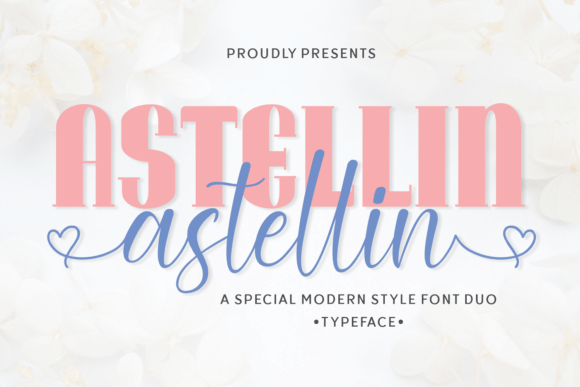
Astellin Font: Elevate Your Design with Astelin Duo
In the realm of typography, few fonts manage to strike a balance between style, versatility, and elegance. However, Astelin Duo, a part of the Astellin Font family, achieves this feat with remarkable precision. This article aims to introduce you to the world of Astellin Font, with a special focus on Astelin Duo—a unique typographic creation designed to cater to your design endeavors. Whether you’re a seasoned designer or an enthusiast looking to elevate your projects, Astelin Duo promises to be a game-changer.
Understanding Astellin Font
The Astellin Font family is a collection of typefaces designed to meet the diverse needs of designers, artists, and brands. Within this family, Astelin Duo stands out for its distinctive characteristics and wide range of applications. Astellin Font is not just about aesthetics; it’s about providing a tool that combines functionality with visual appeal, making it suitable for various design projects.
Introducing Astelin Duo
Astelin Duo is a typographic masterpiece that brings together two complementary fonts—a dynamic display font and an elegant script font. This combination allows designers to harness the power of contrast and harmony in their work. The display font in Astelin Duo is bold and attention-grabbing, perfect for headlines and titles that need to make an impact. On the other hand, the script font adds a touch of sophistication and fluidity, ideal for creating captivating captions or adding a personal touch to your designs.
The Versatility of Astelin Duo
One of the key features that set Astelin Duo apart from other typefaces is its inherent versatility. This font duo is not limited to specific design applications; rather, it can be seamlessly integrated into a wide array of projects. Here are some of the areas where Astelin Duo truly shines:
- Emphatic Headers: The bold display font in Astelin Duo is engineered to create headers that demand attention. Its unique design ensures that your titles and headings stand out, making it perfect for posters, advertisements, and digital banners.
- Captivating Captions: For those looking to add a narrative element to their visuals, the script font in Astelin Duo offers a sophisticated solution. It brings a level of elegance and fluidity to captions, making them not just informative but also aesthetically pleasing.
- Branding and Logos: Astelin Duo’s distinctive aesthetic makes it an excellent choice for branding and logo design. The combination of bold and script fonts can be used to create a unique visual identity that sets a brand apart from its competitors.
- Digital and Print Media: Whether you’re working on a digital platform or a print project, Astelin Duo’s clarity and elegance ensure that your message is conveyed with style and impact.
The Elegance and Aesthetic Appeal of Astelin Duo
Elegance is at the core of Astelin Duo’s design philosophy. The font duo is crafted to not only capture attention but also to convey a sense of sophistication and refinement. This is achieved through meticulous attention to detail, from the fluid lines of the script font to the confident strokes of the display font. Astelin Duo doesn’t just communicate a message; it does so with style and grace, elevating the overall aesthetic appeal of any design.
Elevate Your Design Game with Astelin Duo
In a world where design is king, having the right tools at your disposal can make all the difference. Astelin Duo is more than just a font—it it’s a design solution that offers the perfect marriage of functionality and style. By incorporating Astelin Duo into your projects, you’re not just choosing a typeface; you’re embracing a design philosophy that values elegance, versatility, and impact.
Here are some tips to make the most out of Astelin Duo:
- Experiment with Combinations: Don’t be afraid to play around with the display and script fonts in Astelin Duo. Their combination can lead to interesting and unique design outcomes.
- Pay Attention to Context: Consider the context in which Astelin Duo will be used. This will help you decide which font to use and how to adjust it for maximum effect.
- Consistency is Key: For branding and larger projects, ensure that the use of Astelin Duo is consistent across different platforms and materials.
Astellin Font, particularly Astelin Duo, represents a significant advancement in typographic design. It offers designers a versatile, elegant, and impactful tool to elevate their work. Whether you’re looking to make a bold statement or add a touch of sophistication, Astelin Duo is up to the task. By integrating Astelin Duo into your design repertoire, you’re setting yourself up for success in a world where presentation is everything.
Q: Is Astelin Duo suitable for body text?
A: While Astelin Duo is primarily designed for display and headline purposes, its legibility and elegance make it suitable for short paragraphs of body text, especially when a sophisticated look is desired.